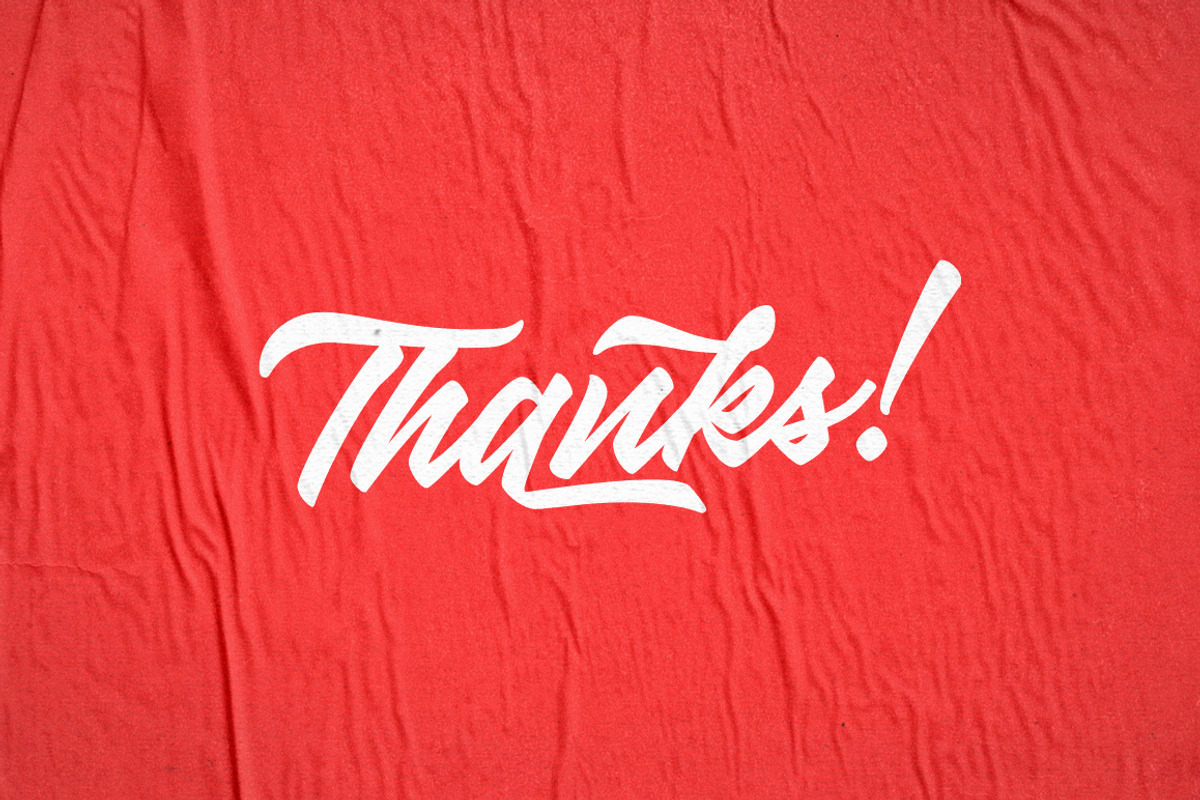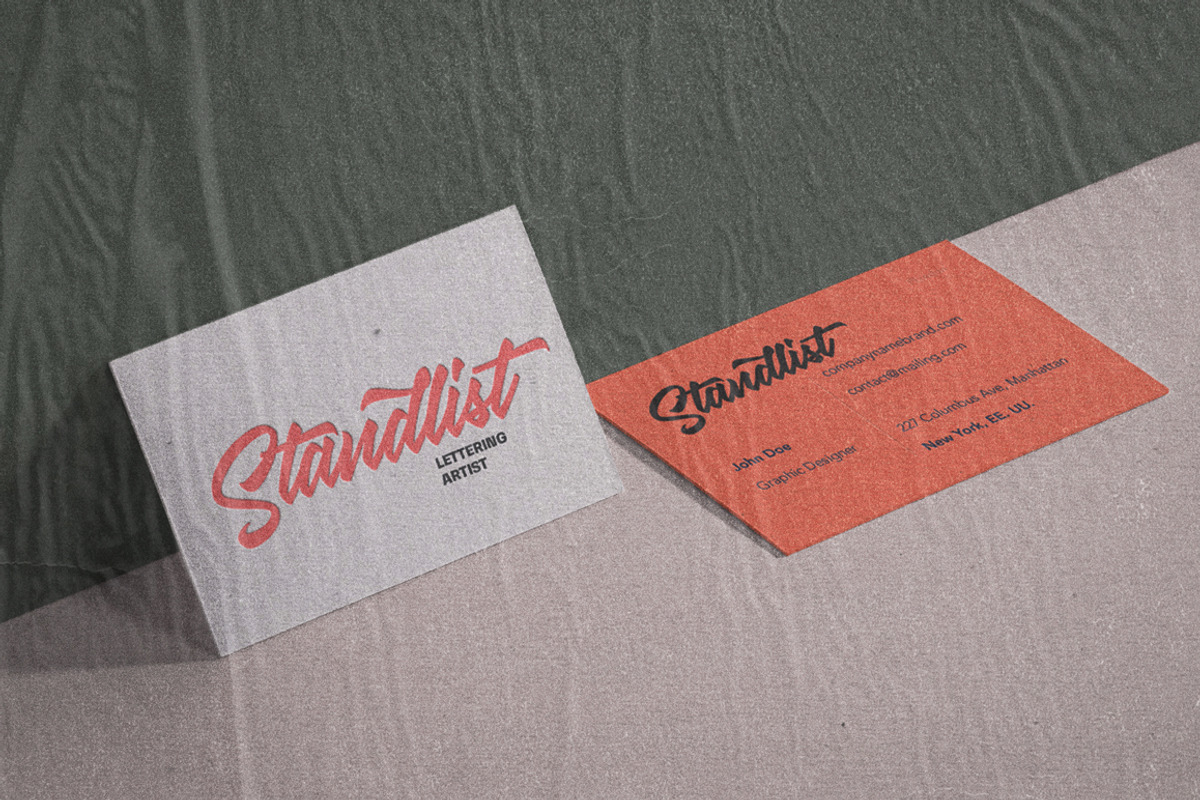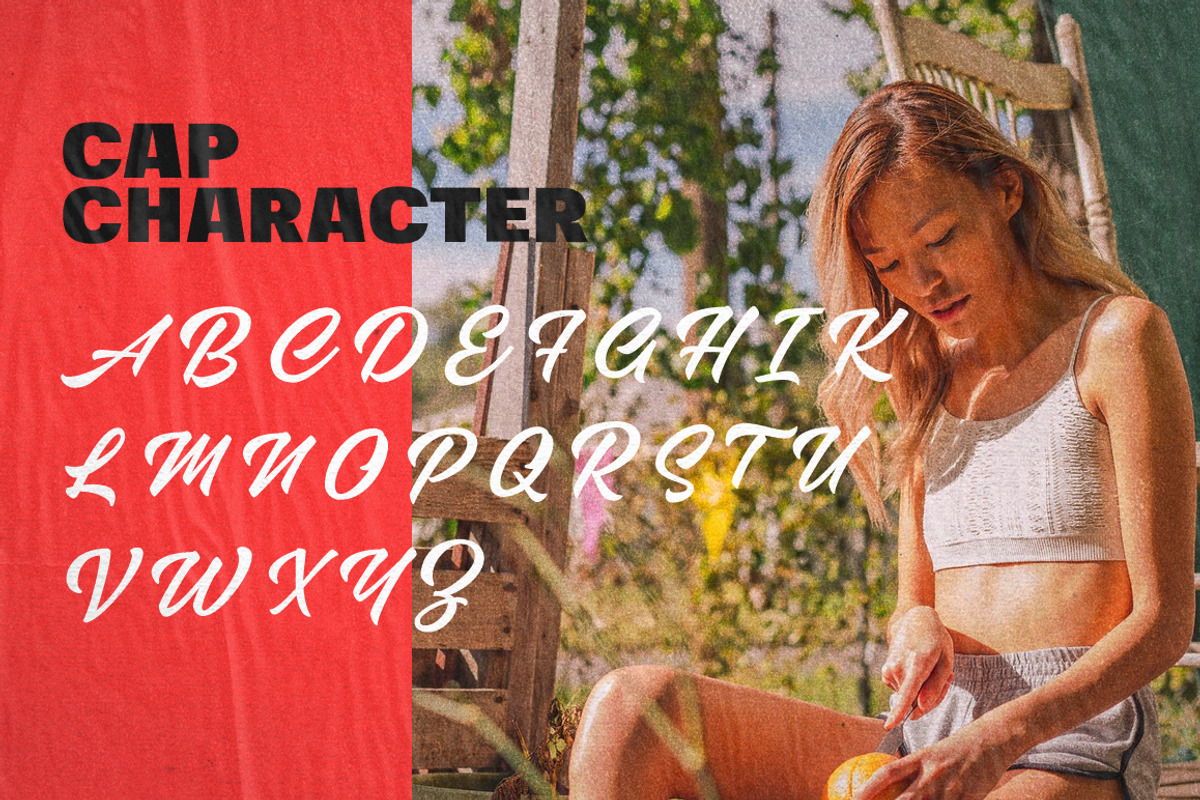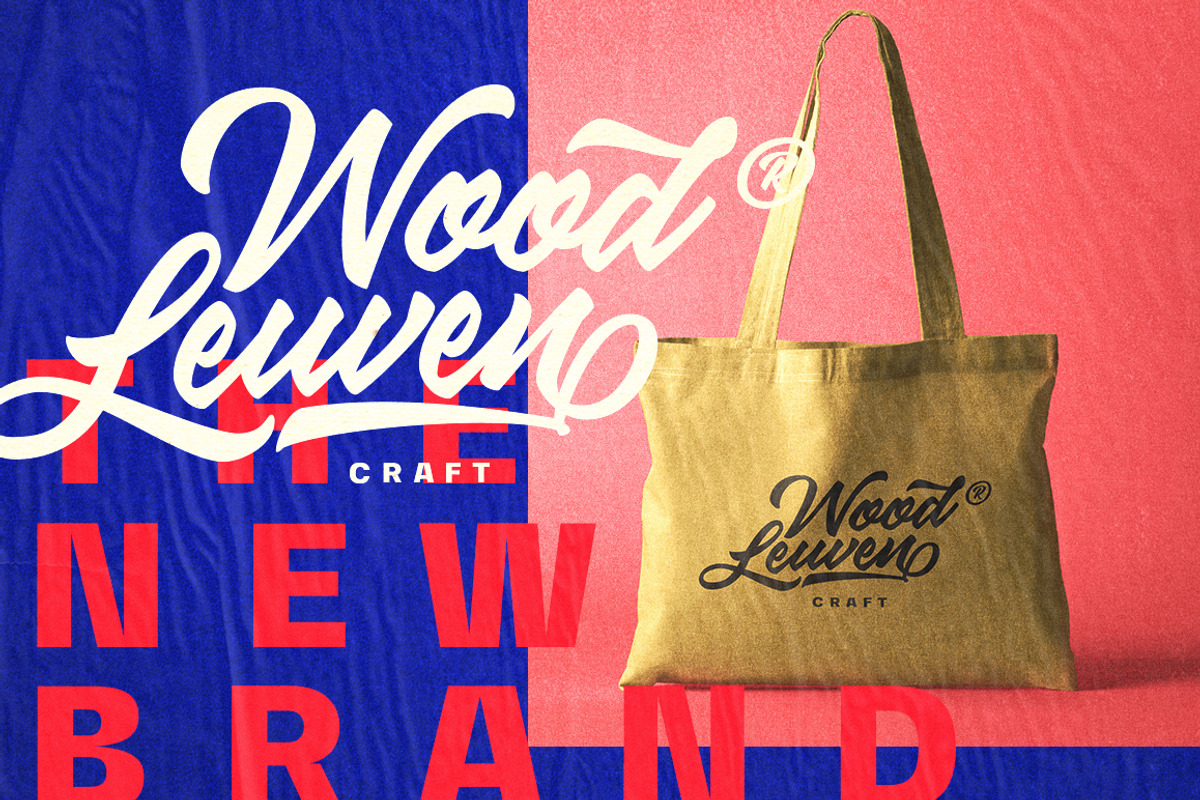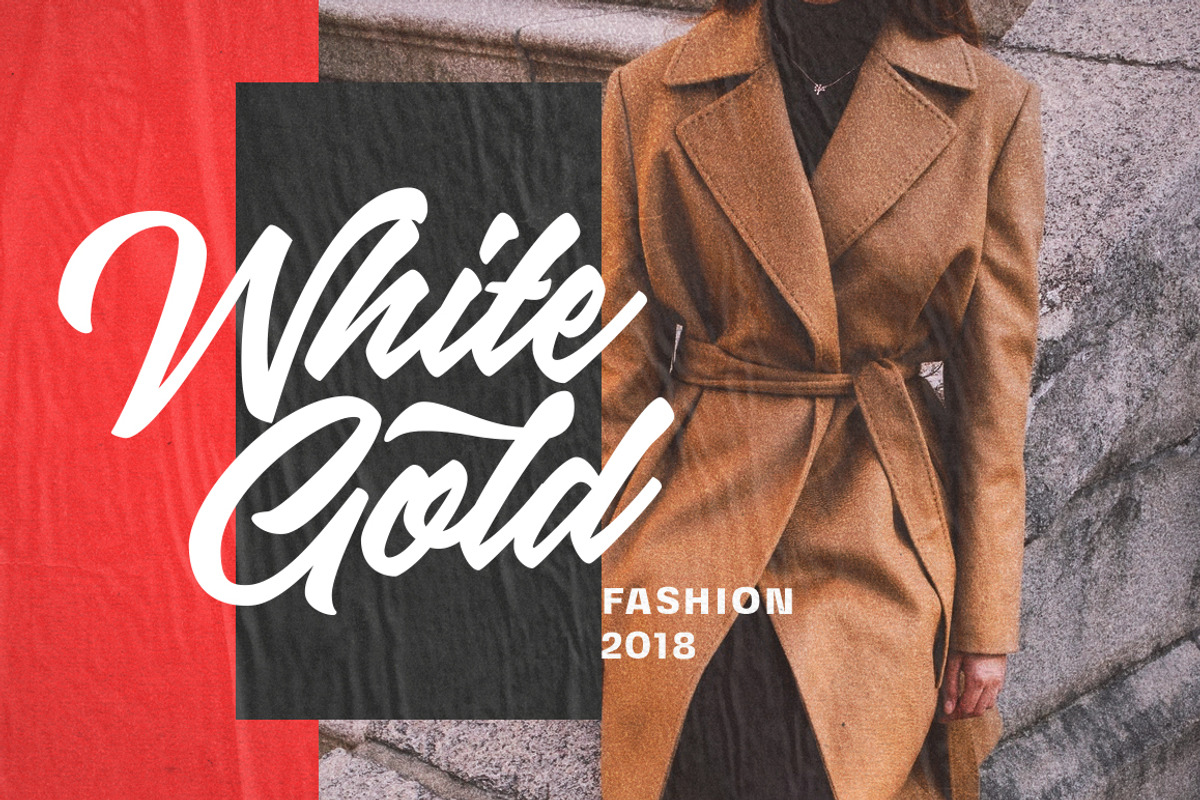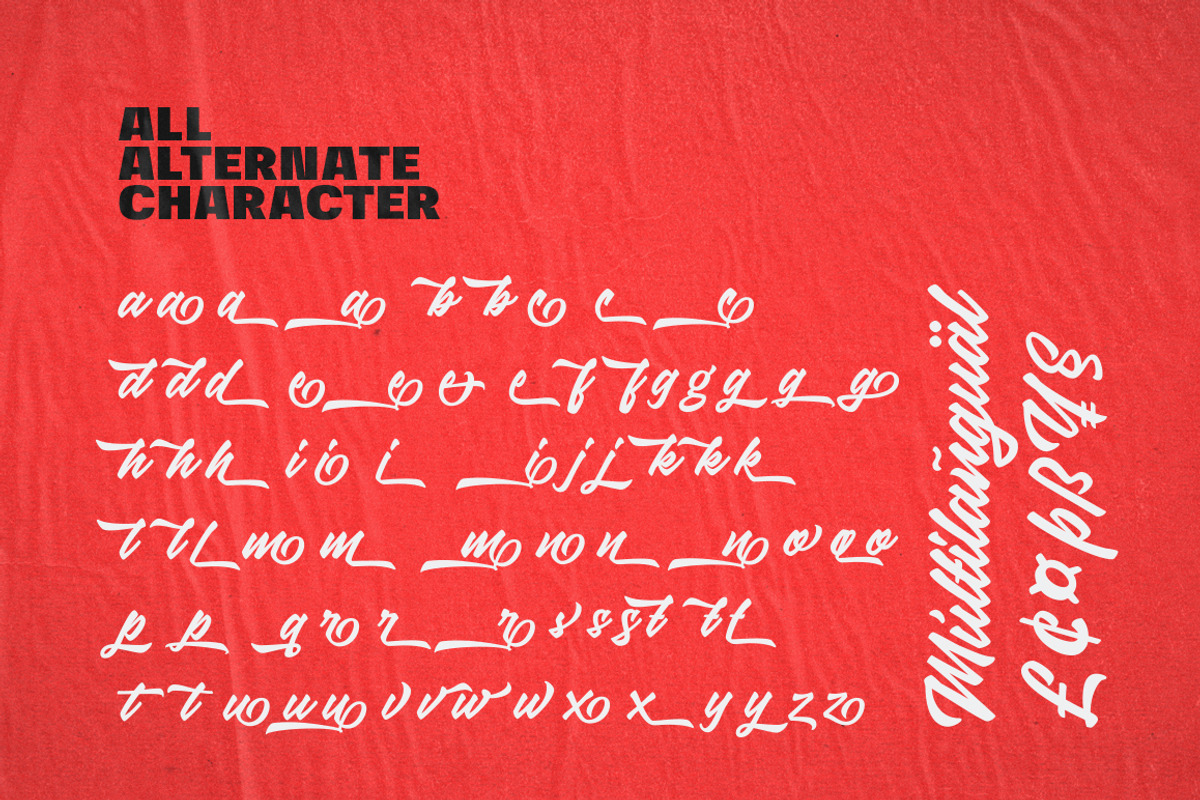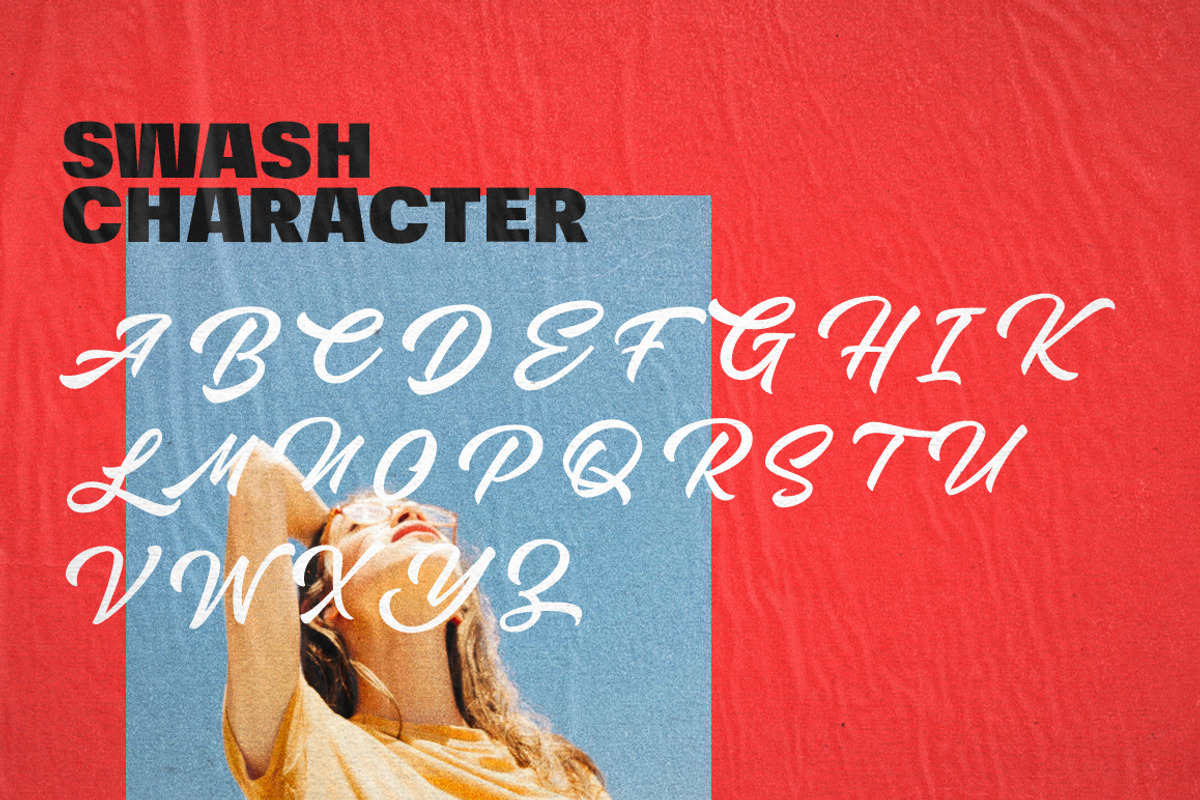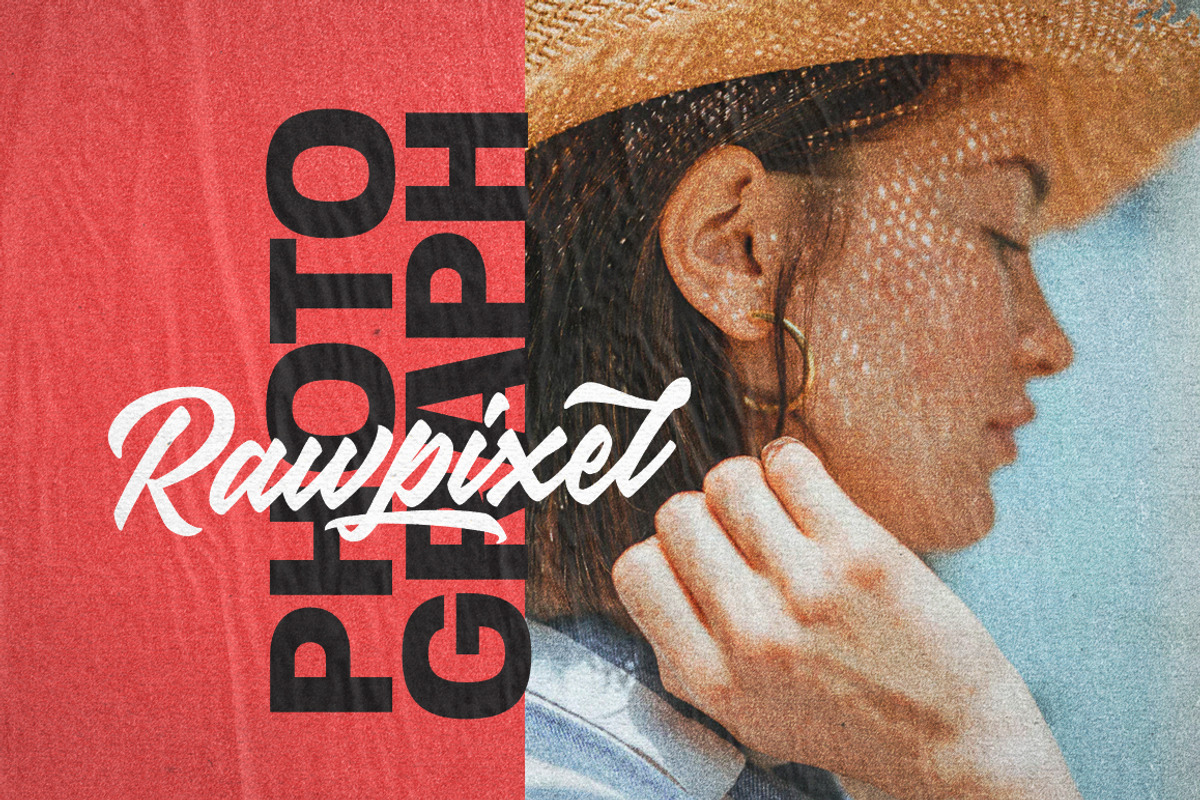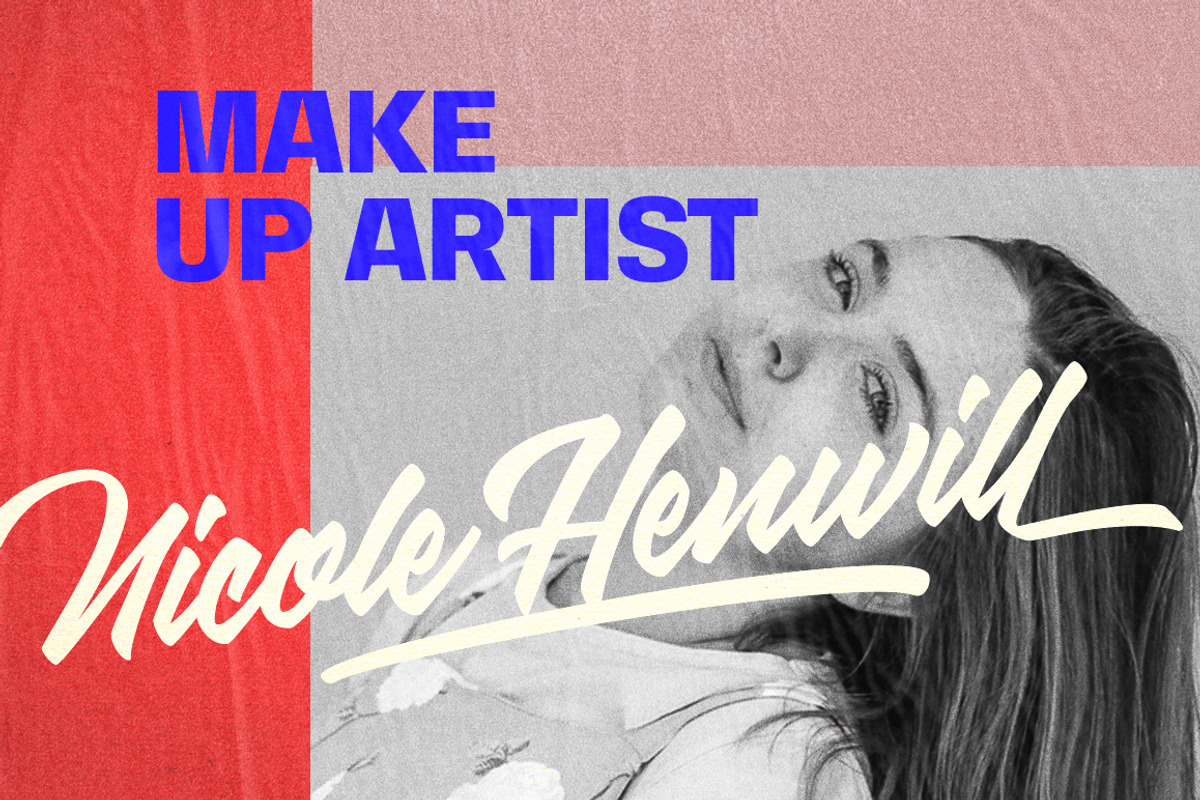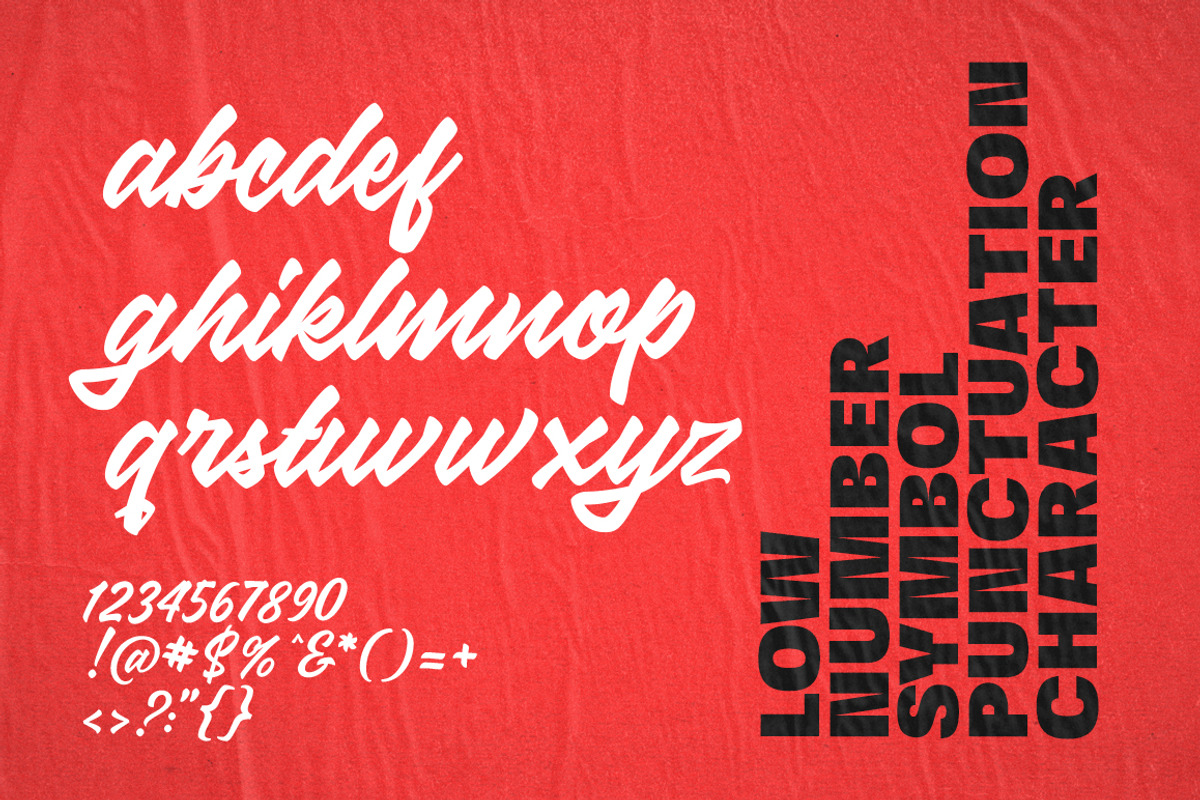
Buston Script ⚡️
Buston Script Inspired by Life style with trend typography.I'm combine with my Hand Lettering style. made with personality touch every single curve. I hope this can make inspire you from your work. and a very bouncy baseline It has a perfectly paired complimentary marker font , and a super handy set of bonus Swash. Ideal for logos, handwritten quotes, product packaging, header, poster, merchandise, social media & greeting cards.